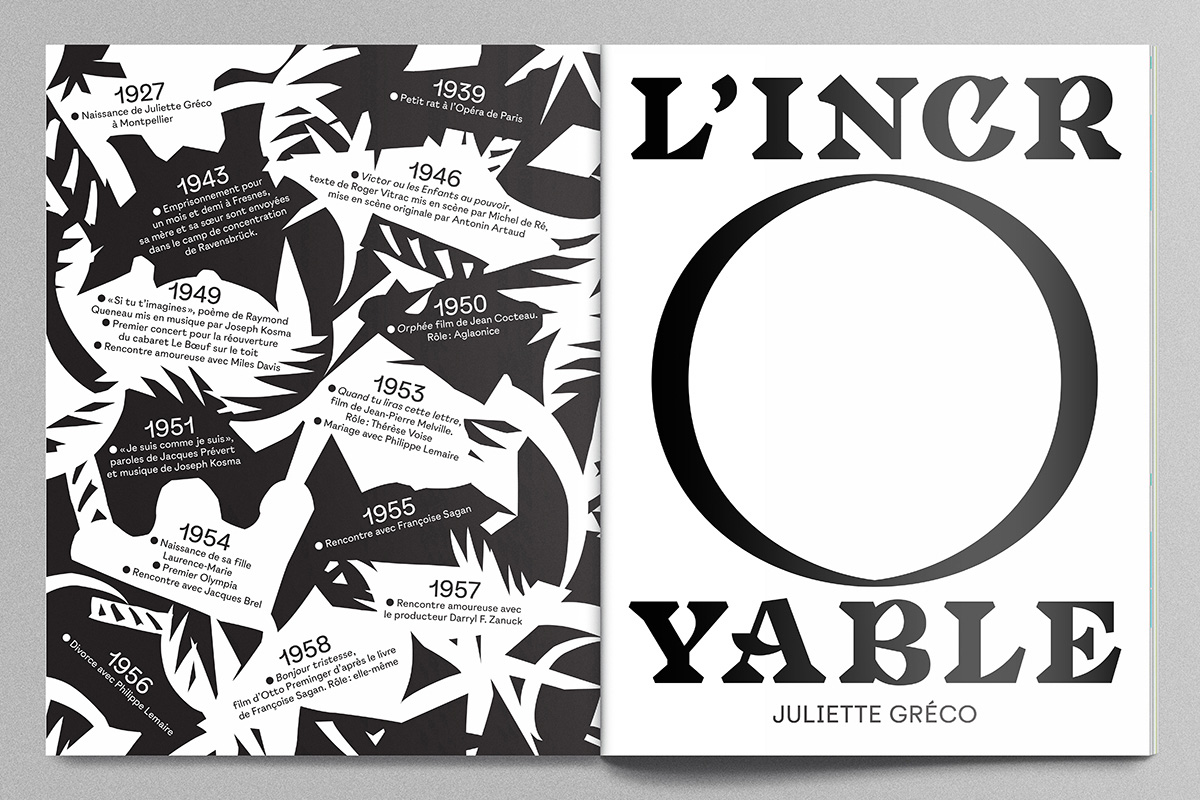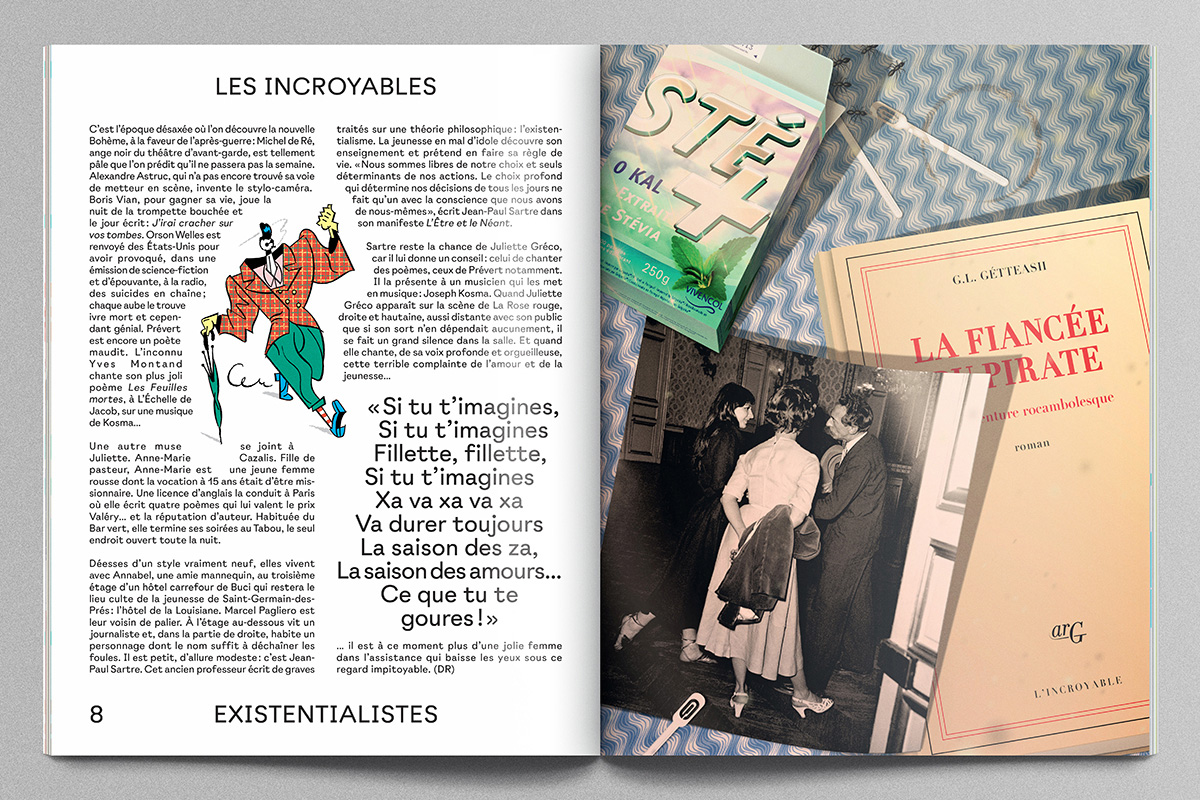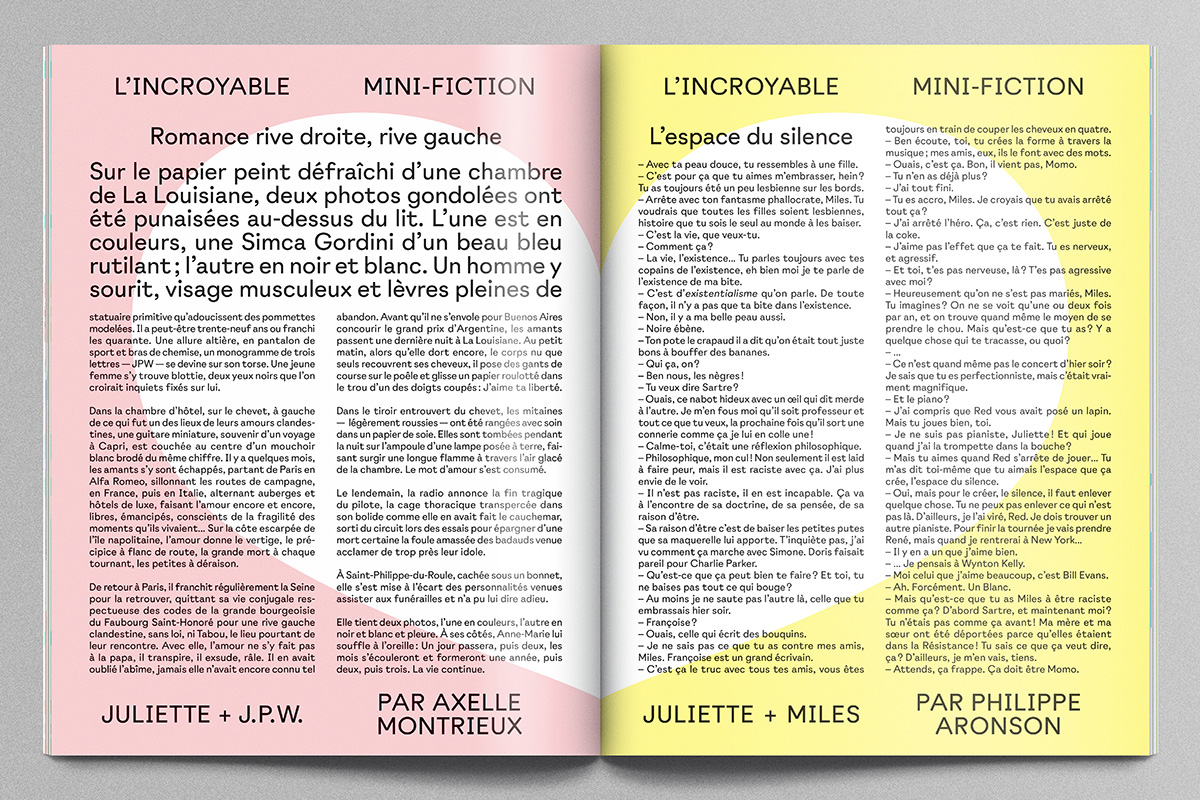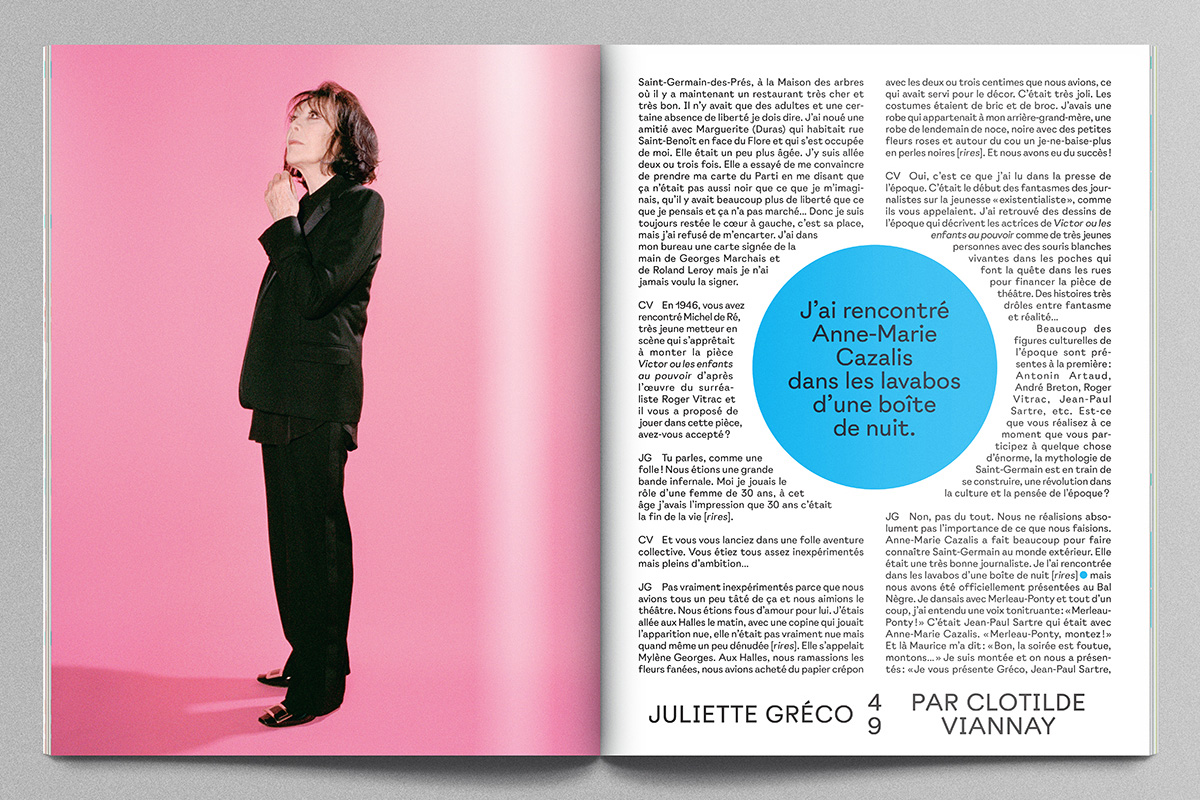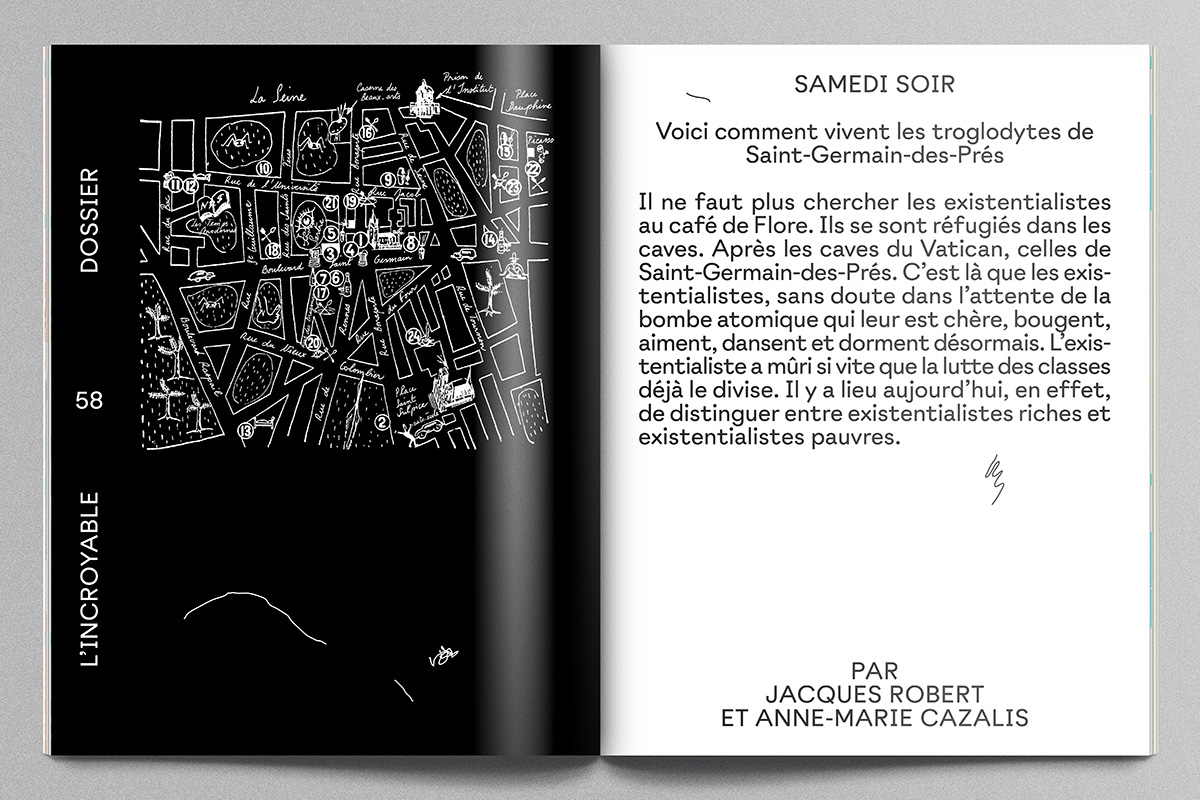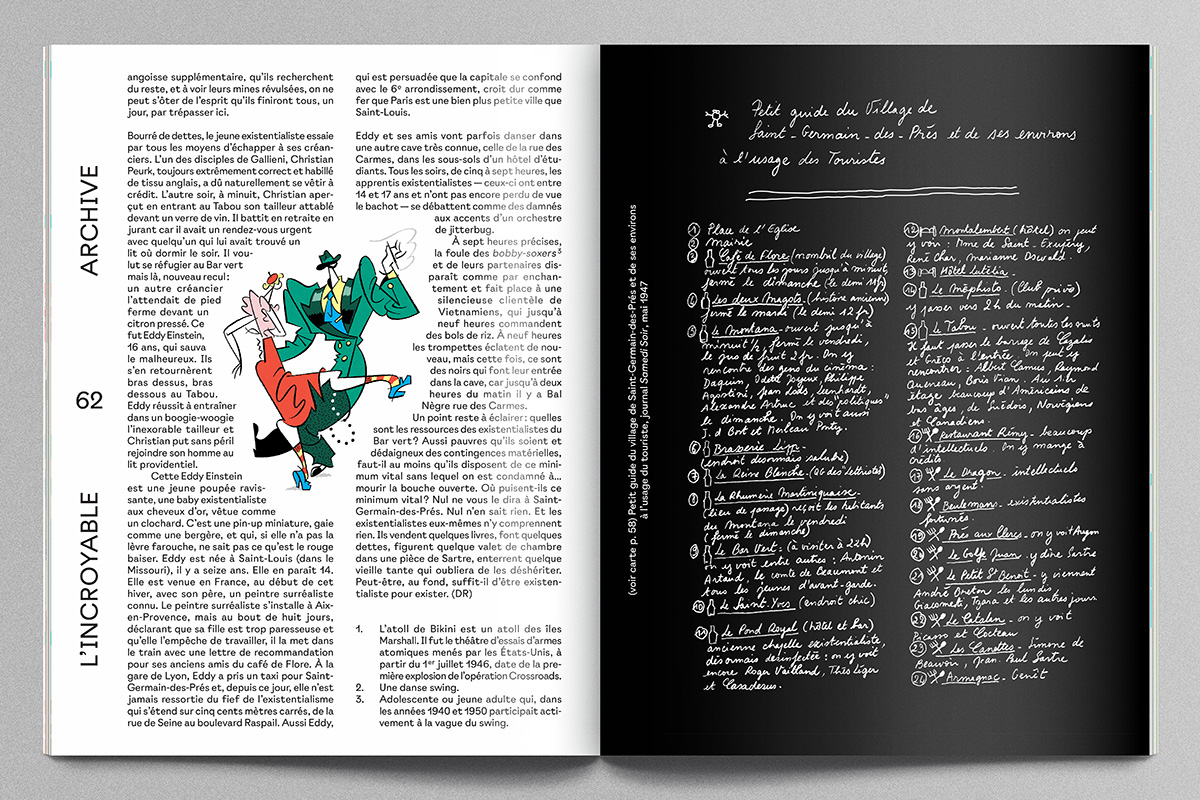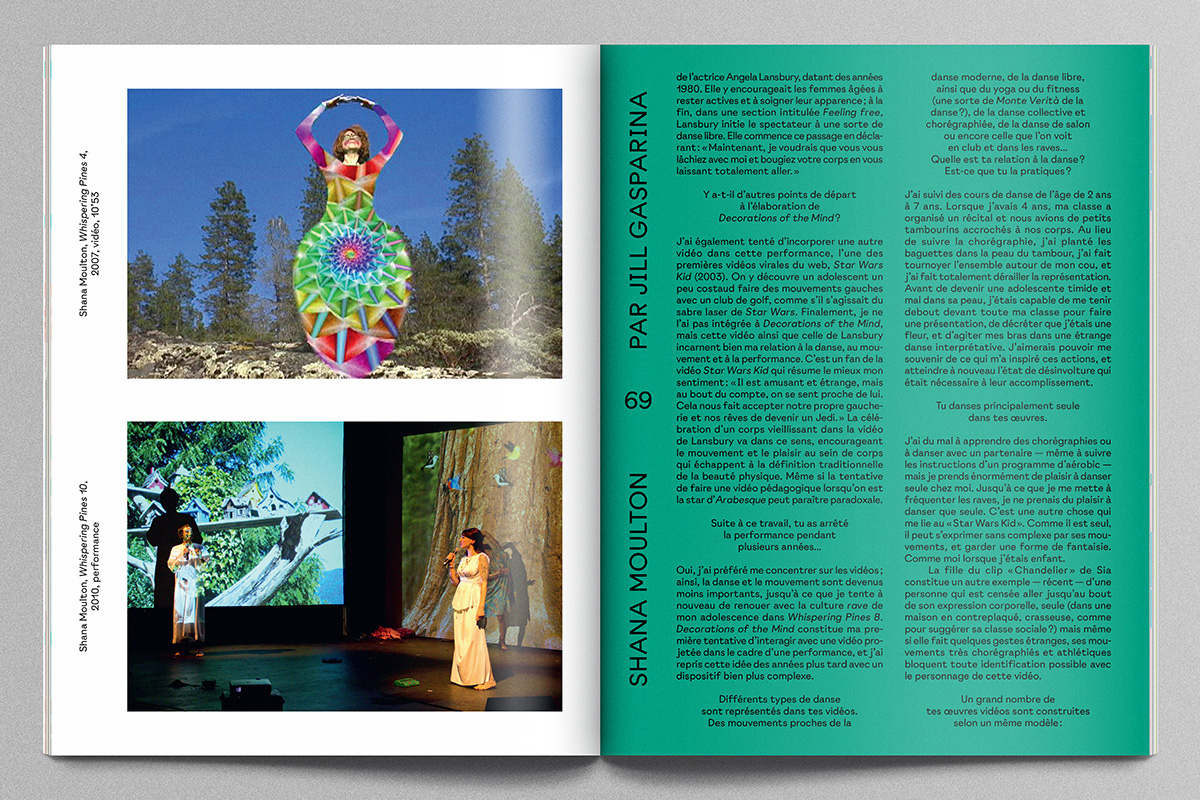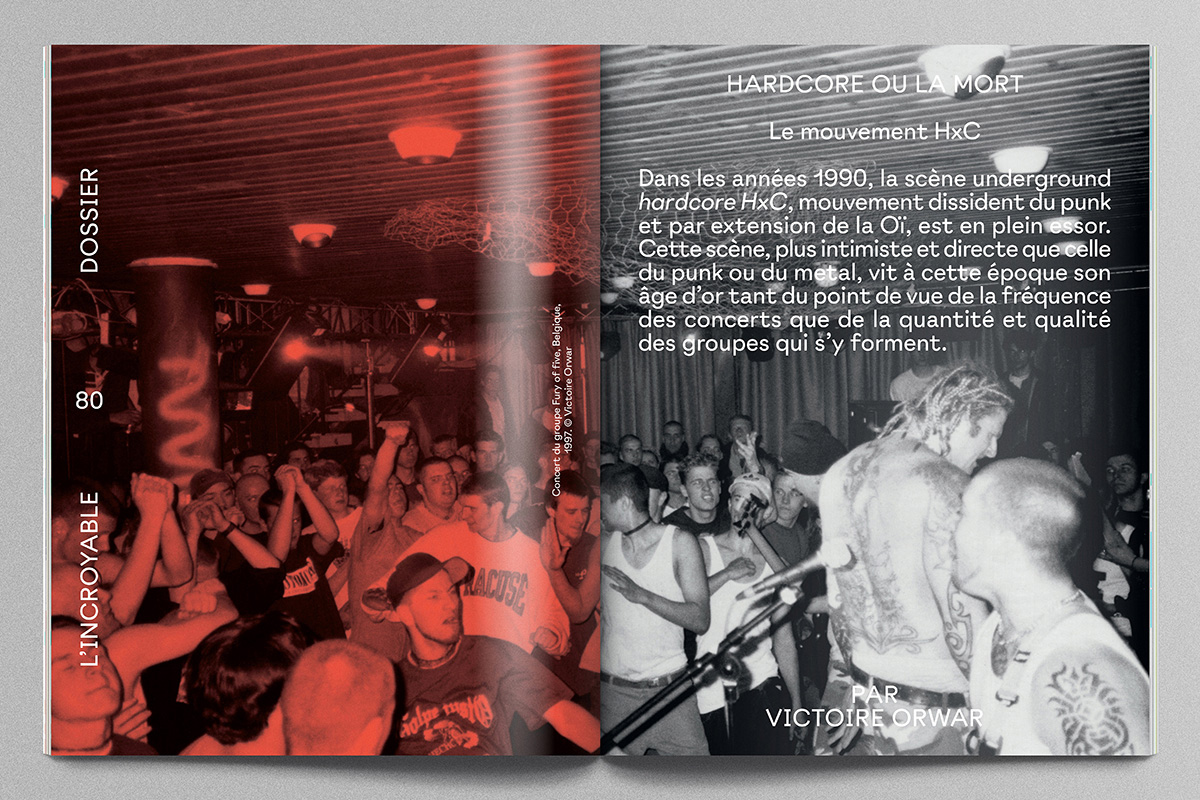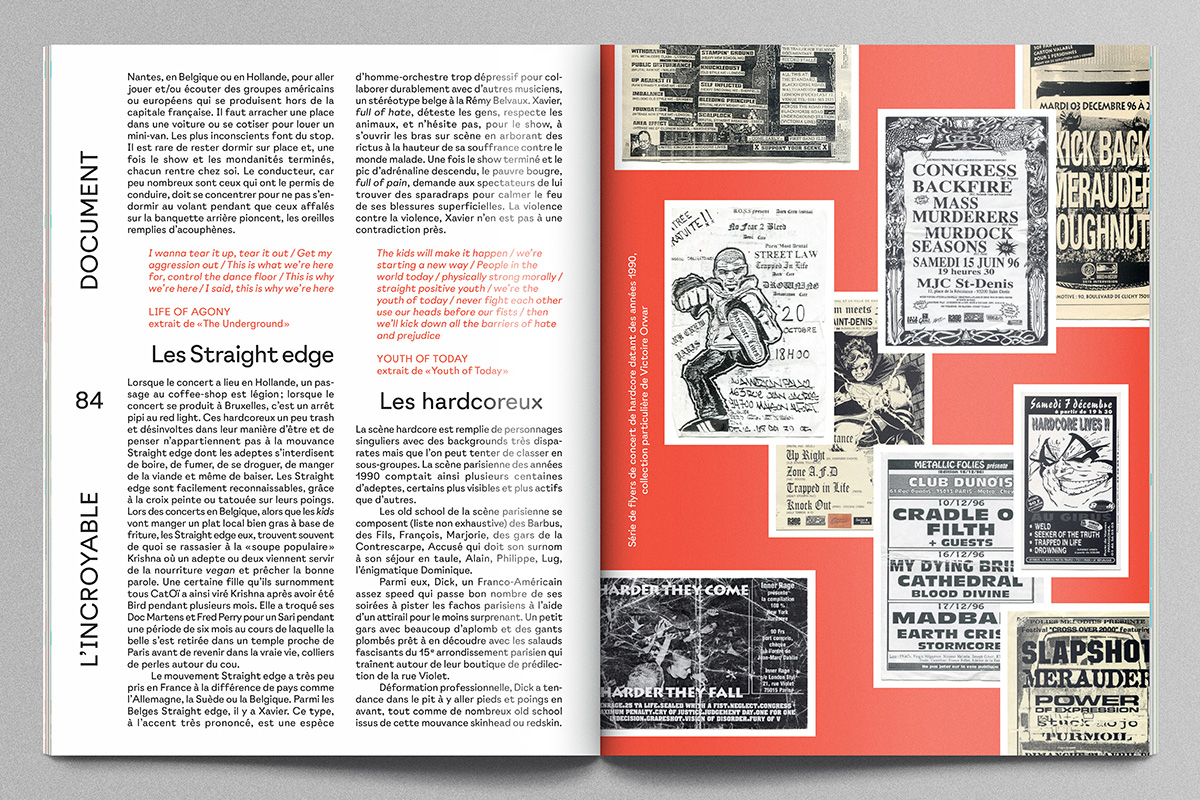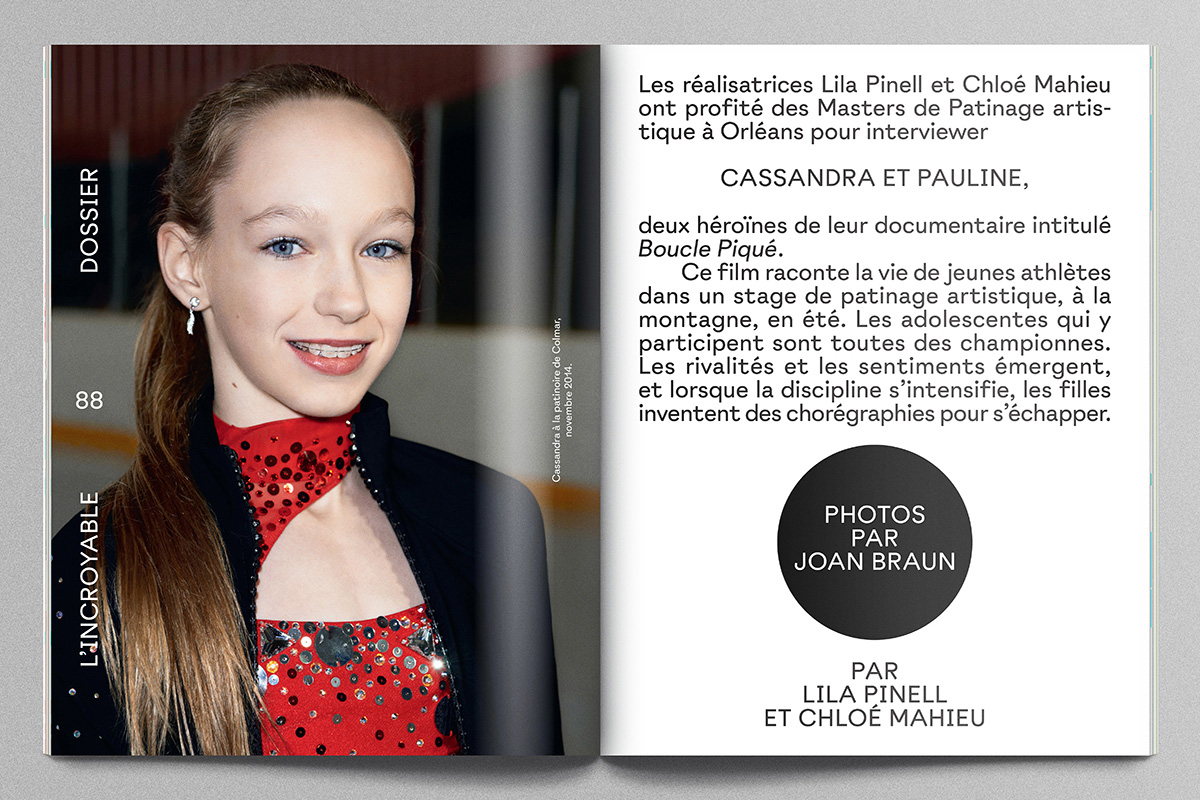
Raphaël Garnier on why L’Incro’s typography smells like teen spirit
For many the weird teenage years are better left forgotten but that is not the case for French magazine L’Incroyable. This new publication is dedicated to adolescence and it will examine the teenage years of someone famous by visiting memories of that period when you are not an adult, nor a child. Edited by artist and designer, Clotilde Viannay, L’Incroyable hosts Juliette Gréco’s remembrances. For its debut issue the magazine traces young Gréco’s life between the ages of 15 to 20, when the actress and singer was imprisoned by the Gestapo at 16, when she met Jean-Paul Sartre, Simone de Beauvoir and Boris Vian and when she spent time hanging out with Miles Davis at the Saint Germaine cafés. The magazine is bursting with stories and its typography is breathing a life of its own. Designed and art directed by Raphaël Garnier, an artist whose mind is ever expanding through shapes and forms, L’Incroyable letterforms are celebrating the excitement of adolescence in their own unique way.
So, what is the idea behind the typographic approach of L’Incr?
There are two different typefaces involved in the project. L’Incroyable, the title typeface and Bruggen for use in the texts. For the first one, my idea was to make a representation of the word and it’s meaning. L’Incroyable is the Amazing so I went for something that makes some noise. Like hearing the trumpets playing, like a glass that breaks into pieces. That’s why there is this element of broken curves in the in the design of the letters. I also wanted it to have a form of elegance. I love the vernacular typography and as an artist, not a typographer myself, I do not know how to draw letters so I simply observed. In my line of work I draw lots of shapes therefore I told myself that in this case, for this project, people have to read the forms. I’m not an expert, so I do not know all the rules and I have the privilege to not limit myself with any. I like everything that is naive, that holds a form of emotion that we do not find elsewhere, something poetic. I want to stay naive, I want to still be marveled.
As for the Bruggen, well that was a completely different project. I started working on the letters A, t, R, G as I was working on a logo for my graphic design studio At. R.G. (Atelier Raphaël Garnier). The outcome was really ugly but... I work directly on the computer, I do not do drawings, so I literally sculpt with vectors. Then I started to do all the glyphs. It was not at all a typography for the magazine. I wanted to make a typeface with a geometric base, which could be in accordance with the images I make. I wanted a typeface that could be an image itself. I wanted letterforms that were graphically strong enough. So to give this font an identity I chose to cut all the ends of letters to 90° as a rectangle. I do not know if this is understandable, but it is obvious on the R and A. This typeface is named after the inventor of Kapla: Tom van der Bruggen. The Bruggen has a childish element to it, it’s like a teenager, this is why the director of L’Incroyable, Clotilde Viannay, pushed me to develop this kind of typeface for the magazine. Because the magazine speaks about adolescence of a guest.
How long have you been working on it?
For the Bruggen almost one year, and it is not finished yet. For L’Incroyable a couple of weeks.